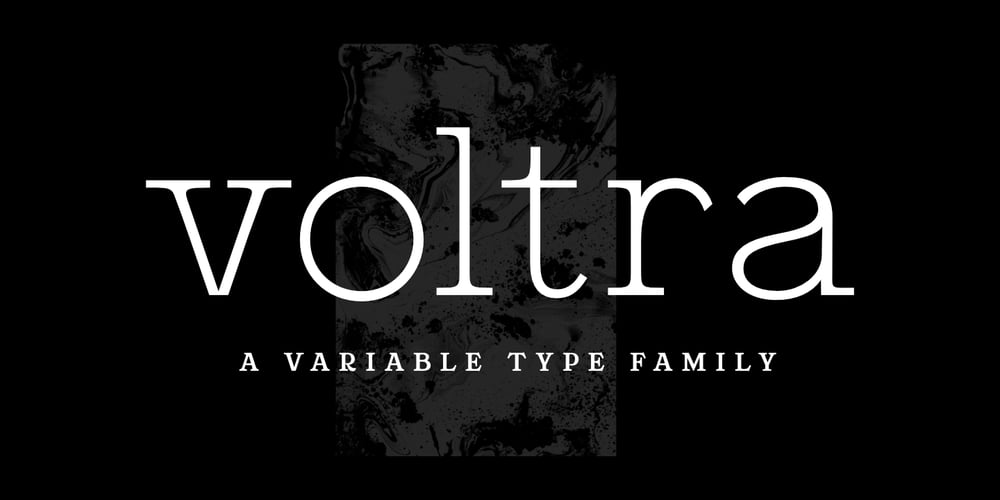
ZT Voltra Font Family was designed by D.S. Sjahputra and published by Zeune Type Foundry. ZT Voltra contains 19 styles and family package options. ZT Voltra is a stylish and charismatic serif type family that brings modern and vintage feels that allow you to make a visual journey from thinnest body slab to a very thick expanded display serif.ZT Voltra works in modern digital interfaces on mobile and web platforms also suitable in humanist serif touch for prints and any design projects. Twelve weights with seven expanded widths cover everything from an airy thin to a good looking heavyweight and support for 100+ languages.